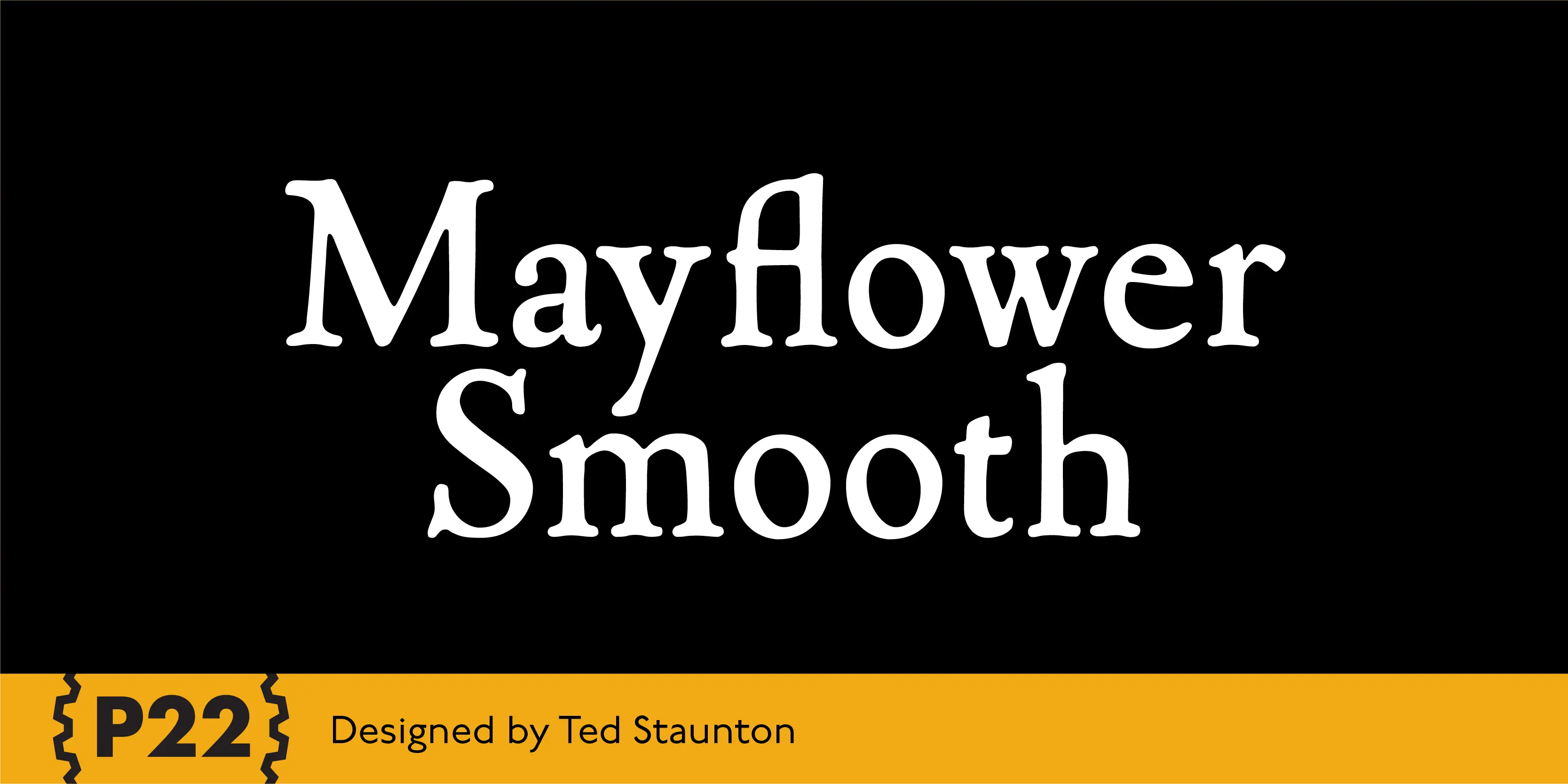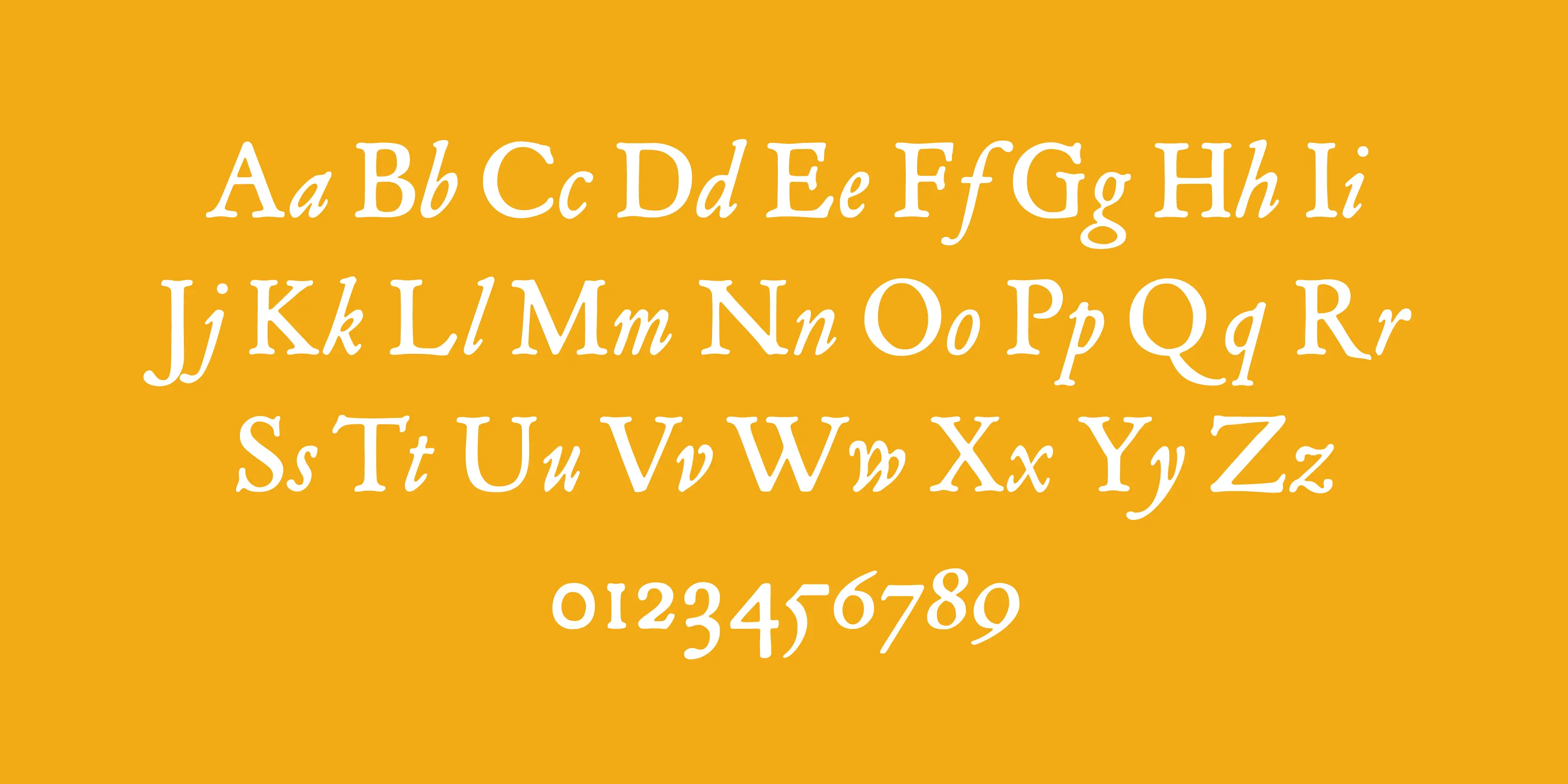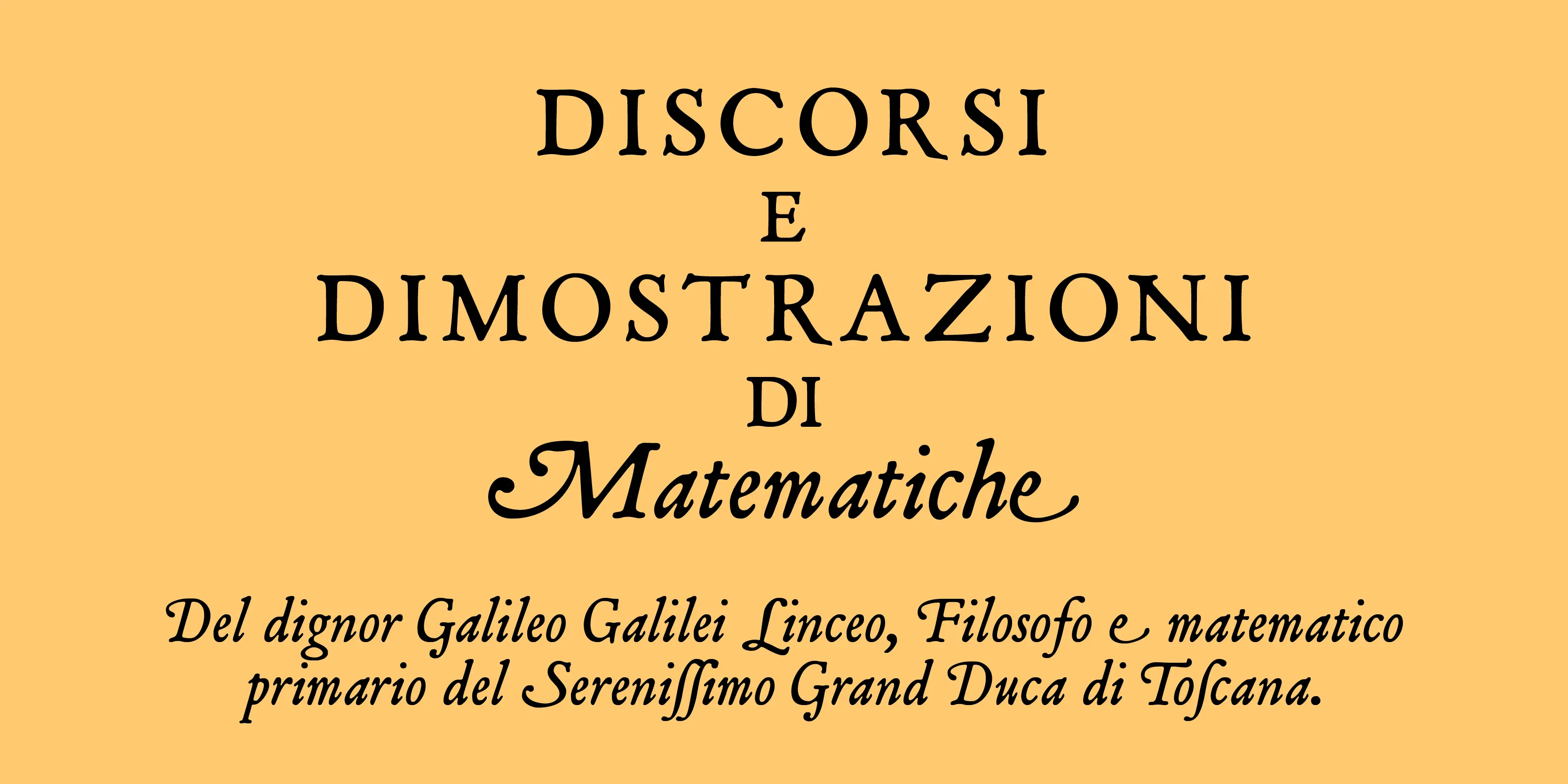
Mayflower Smooth Font Family
Mayflower Smooth
P22 Mayflower is a classical Roman font taken from a Bible of 1610, the edition likely carried to America by the pilgrims on the Mayflower. Good for period reproductions, with its companion italic.
• Historical Ligatures
• Swashes
Historical Ligatures
Swashes